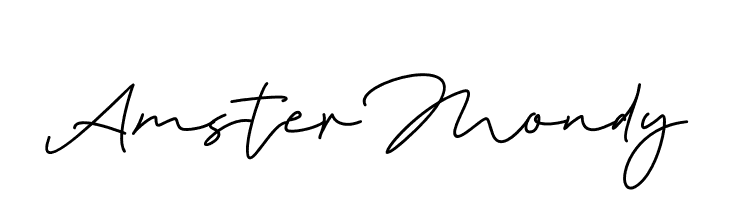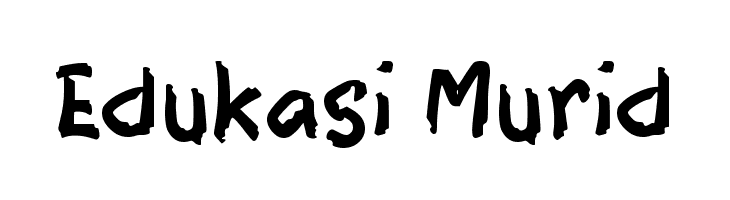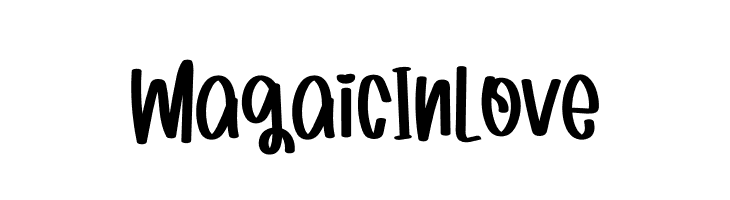
A bold, handwritten font with rounded strokes and a playful style.
A dynamic and fluid script font with elegant, flowing letterforms.
A bold, italic, sans-serif font with a modern and dynamic style.
A flowing, elegant cursive font with seamless character connections.
An elegant, flowing script font with interconnected cursive letters.
A bold, italicized font with a halftone effect, exuding a modern and dynamic style.
A bold, graffiti-inspired font with a 3D extruded effect, ideal for urban-themed designs.
A bold, angular font with a geometric, modern design.
An elegant script font with fluid, cursive strokes and graceful curves.
A decorative font with characters enclosed in Celtic crosses, blending tradition with modern style.
设计师偏爱 Migawe, Beagle Sign - Personal Use, Qualio bold italic, Heroes Fest and Biancha,因为其造型干净、适用范围广—— 从品牌识别到落地页、海报都能胜任。